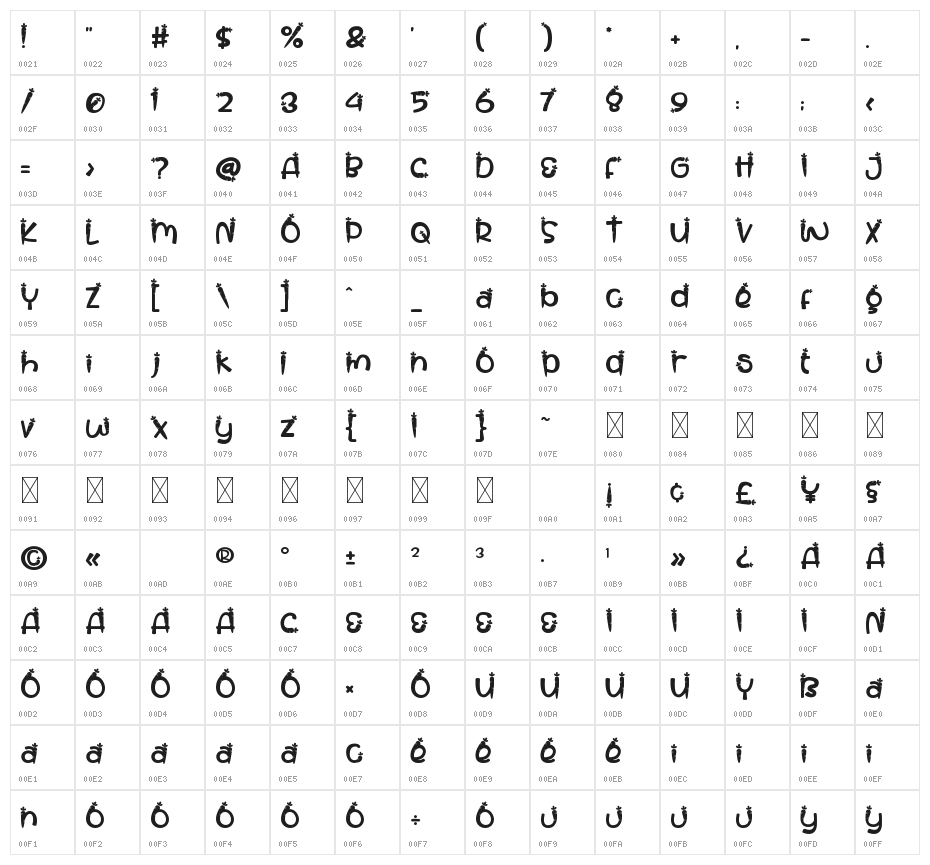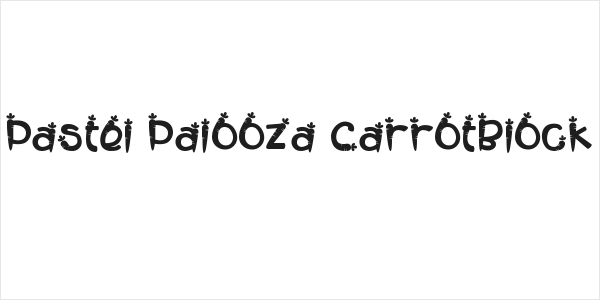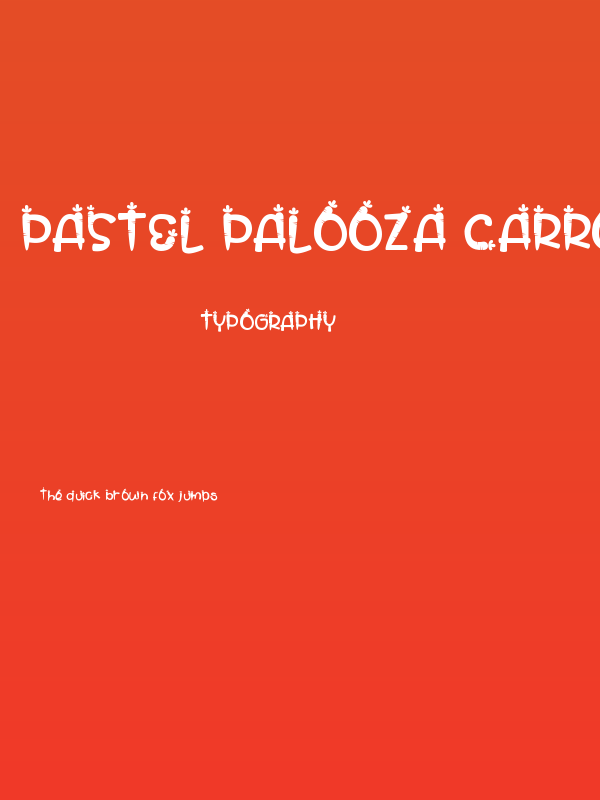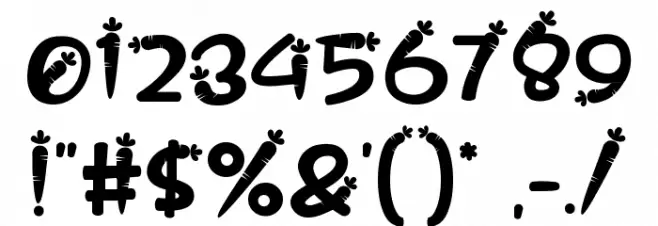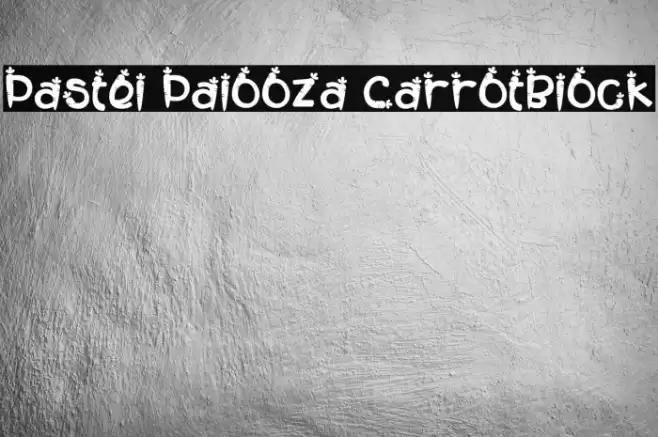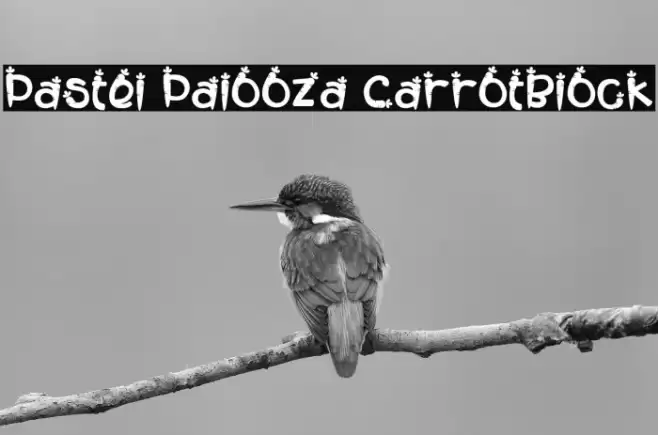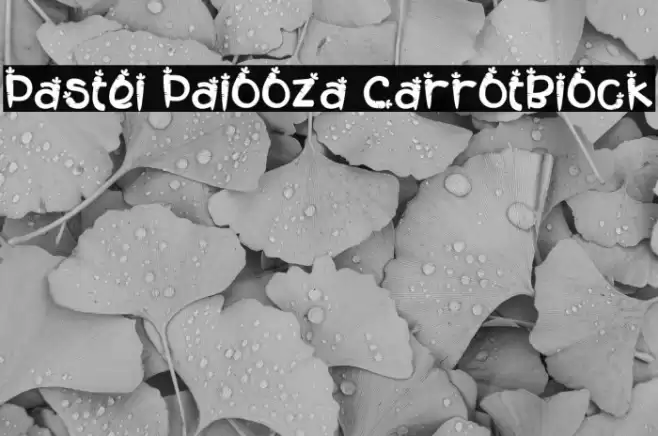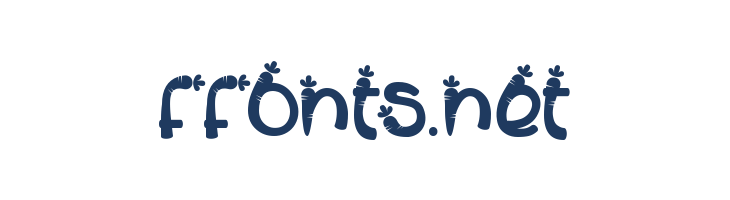
Pastel Palooza CarrotBlock Font
Pastel Palooza CarrotBlock Description
This playful and whimsical font features a unique design where each character is adorned with carrot-like embellishments, giving it a fun and quirky appearance. The letters are bold and rounded, with a consistent thickness throughout, making them highly legible. The decorative elements add a touch of creativity, making it suitable for projects that require a lighthearted and cheerful vibe. The font maintains a consistent baseline and x-height, ensuring uniformity across different characters. Its distinctive style makes it stand out, perfect for attracting attention in various design contexts.
| Overall Style | Whimsical |
| Proposed Projects | Ideal for children's books, playful branding, party invitations, and food-related designs. |